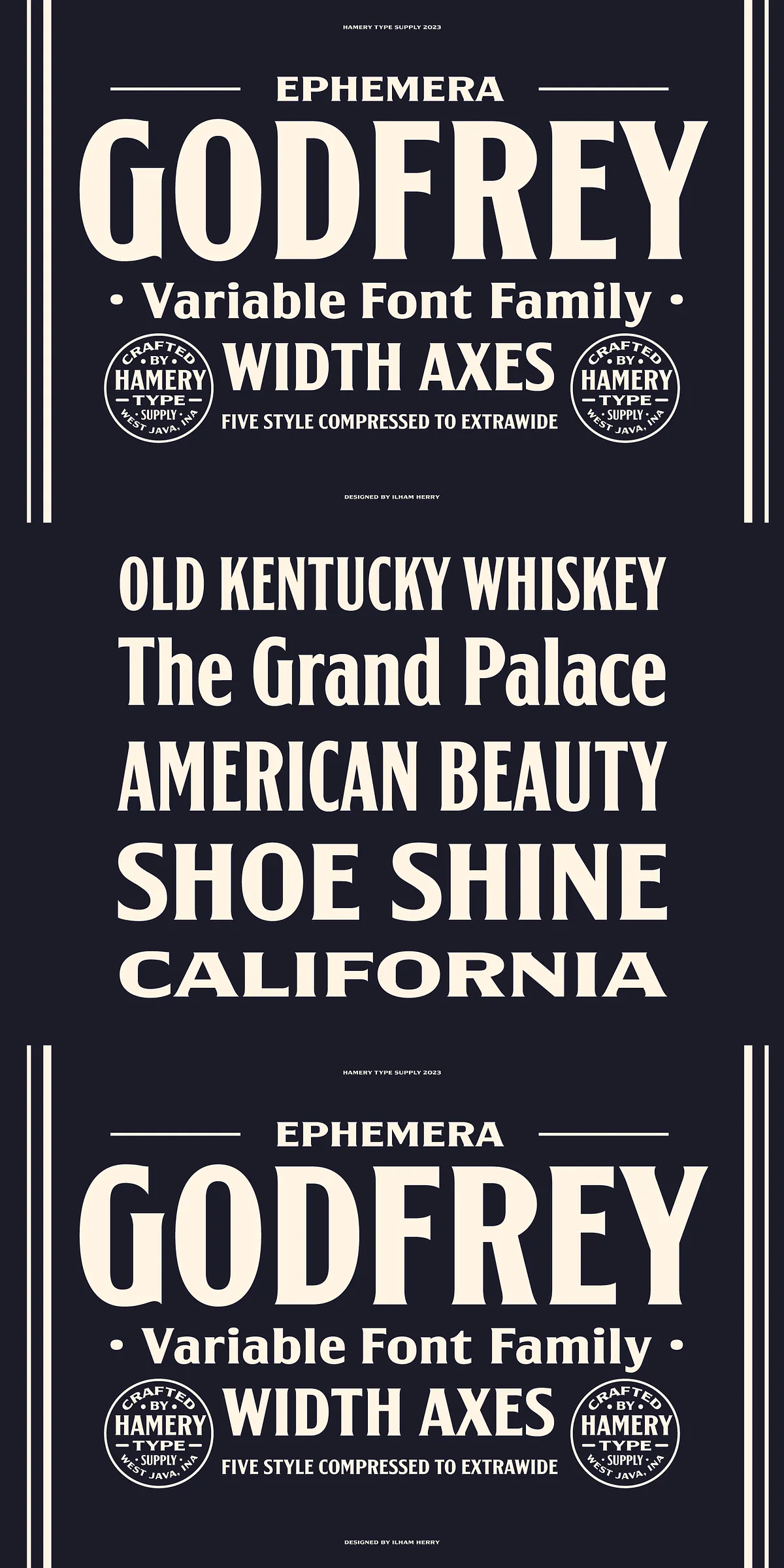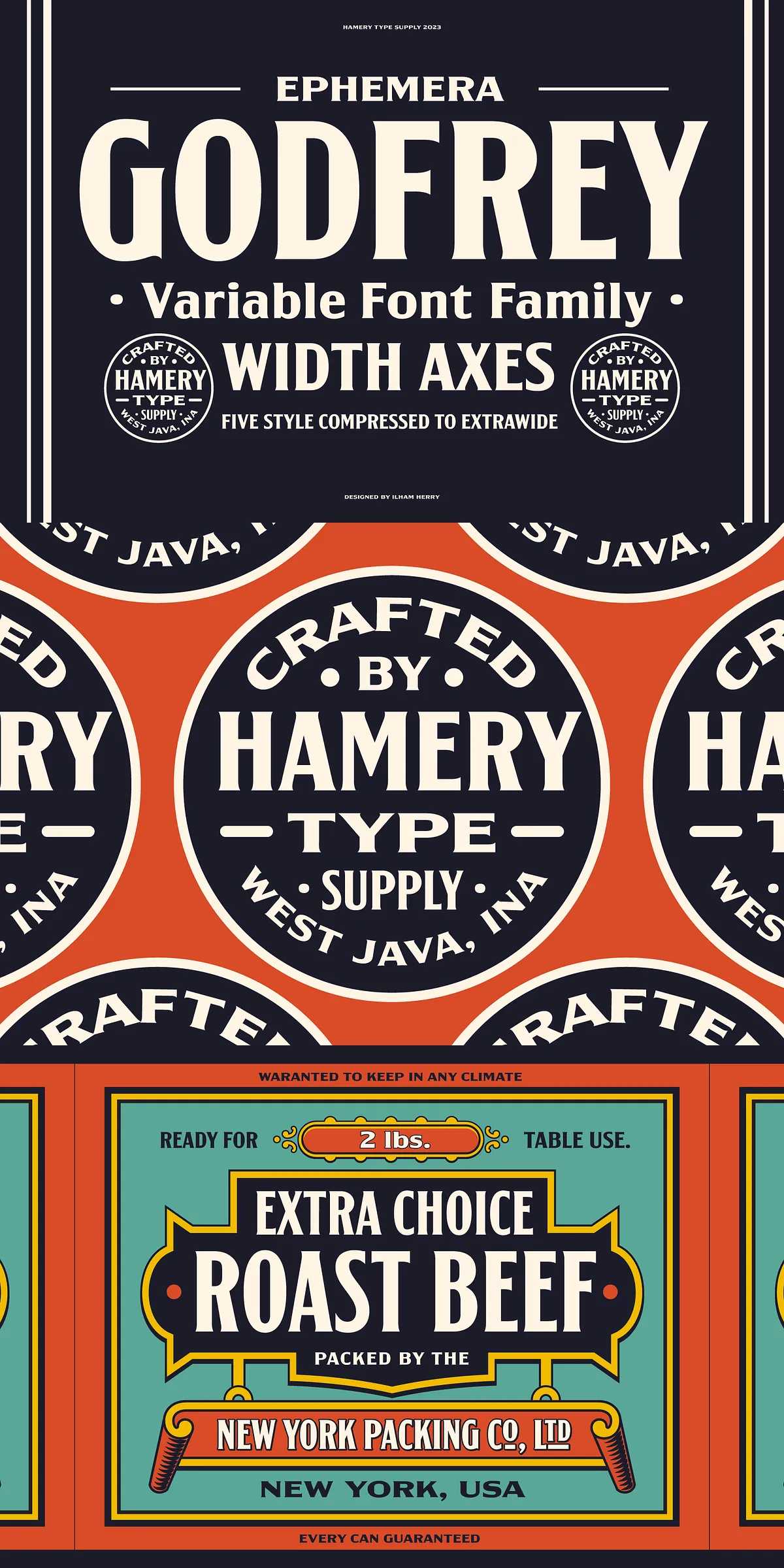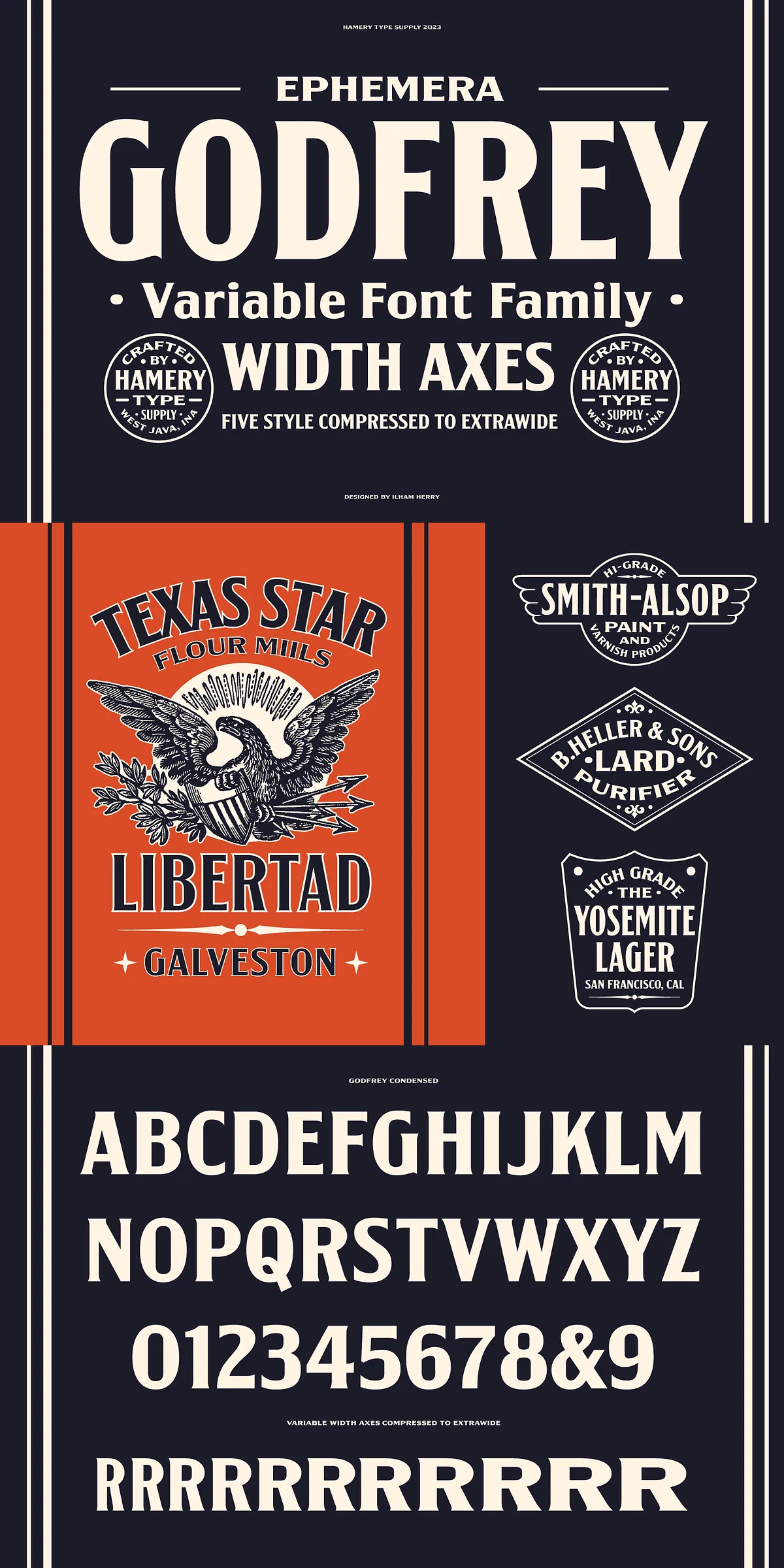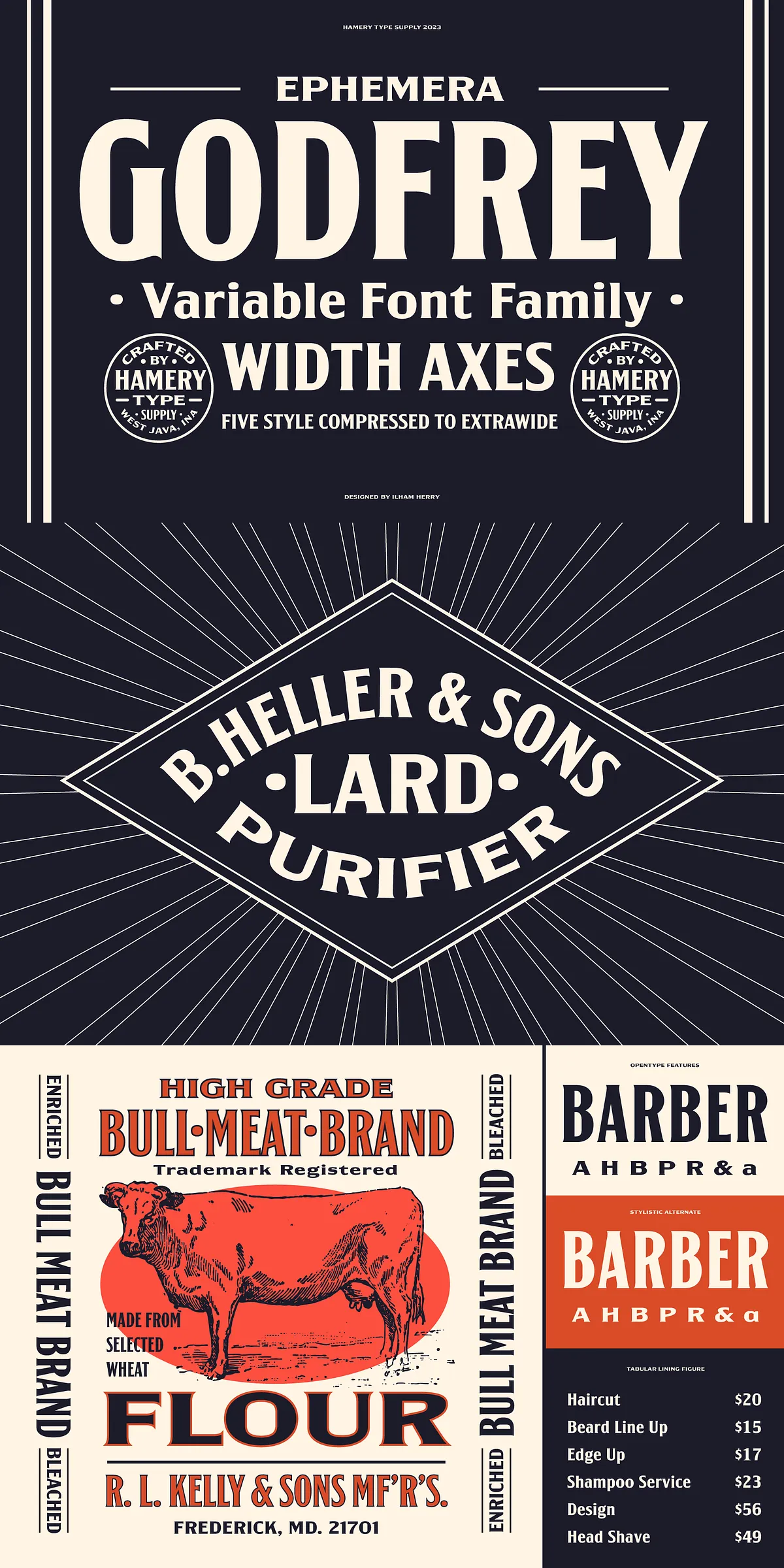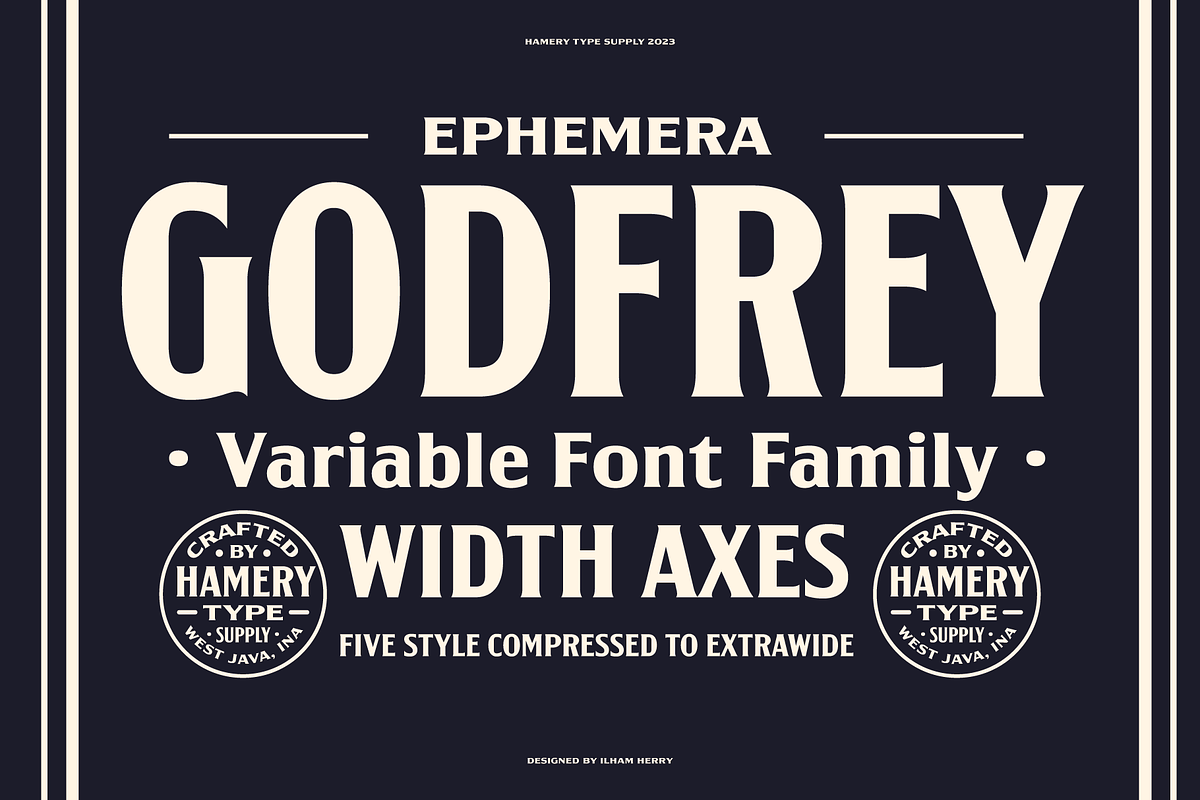
Unlock the power of retro elegance with Godfrey — a dynamic, multi-style display font inspired by the classic craftsmanship of vintage labels. Engineered for high-impact visual applications, Godfrey delivers unmatched versatility and character across a wide range of creative projects. Whether you’re designing bold headlines, striking posters, eye-catching signage, branded t-shirts, or full-scale identity systems, Godfrey brings the authentic charm of mid-20th century typography into the digital age.
6 Distinct Styles for Infinite Design Possibilities
Godfrey is not a single font — it’s a complete typographic ecosystem. With six meticulously crafted styles, from ultra-compressed to extrawide, you can adapt the same font family to fit any design context. Whether you need tight, condensed text for packaging labels or expansive, dramatic lettering for stage banners, Godfrey provides the perfect variation to match your vision.
The inclusion of variable fonts takes flexibility to the next level. Easily adjust weight, width, and optical size in real time without switching files — perfect for responsive web design, scalable branding, and seamless digital integration. This means you can achieve a consistent look across print, web, and motion media with minimal effort and maximum control.
Advanced OpenType Features for Professional Precision
Built for professional designers, Godfrey includes a suite of advanced OpenType features that elevate your typography to a new standard:
Stylistic Alternates
Replace standard characters with refined alternatives to add personality and variation to your text. Use stylistic fonts for headlines, subheadings, or single words to create visual interest and reinforce brand identity.
Ligatures for Seamless Flow
Enhance readability and aesthetic appeal with contextually intelligent ligatures. Features like CO. and LTD are embedded as custom ligatures, delivering the authentic look of vintage labels while maintaining typographic integrity.
Tabular Lining Numerals
Ensure perfect alignment in tables, price tags, and numerical data with perfectly spaced tabular lining figures. This is critical for designs requiring precision and consistency, such as packaging, signage, and invoices.
Perfect for Display Typography Across All Media
Godfrey was born for display use. Its bold personality and vintage flair make it ideal for:
- Packaging & Label Design: Mimic the authentic feel of vintage product labels, perfect for craft goods, cosmetics, and specialty foods.
Don’t just create designs — tell stories. With Godfrey, every line carries history. Every character breathes personality. Every letter feels hand-crafted, even in digital form.